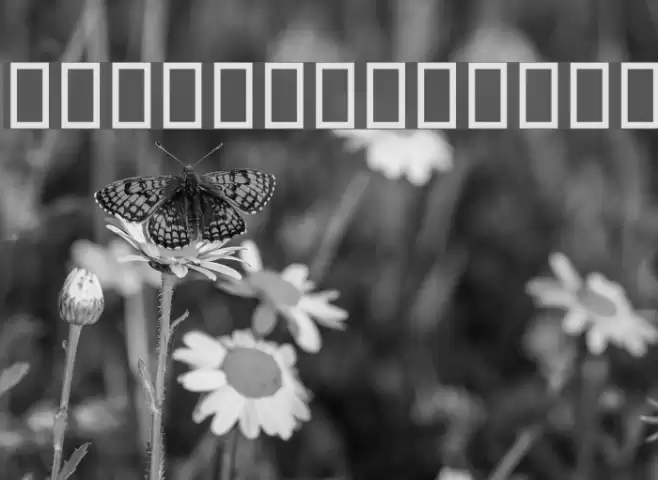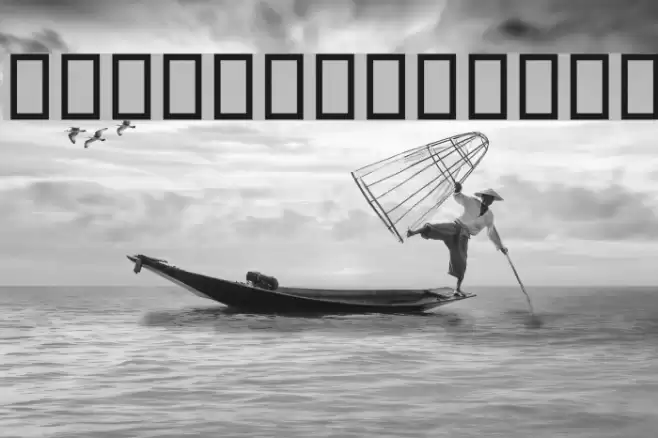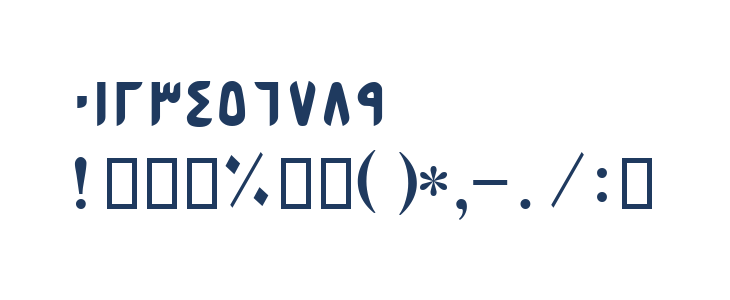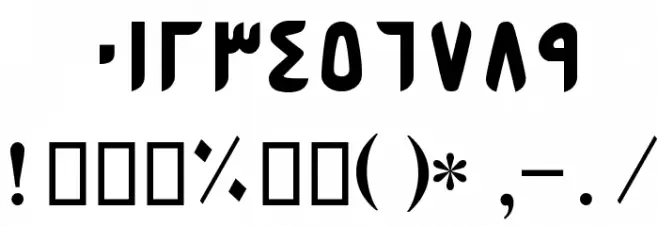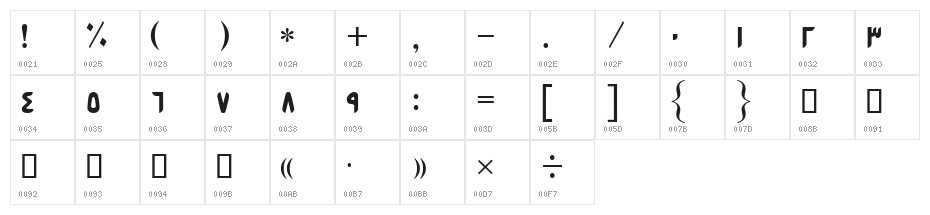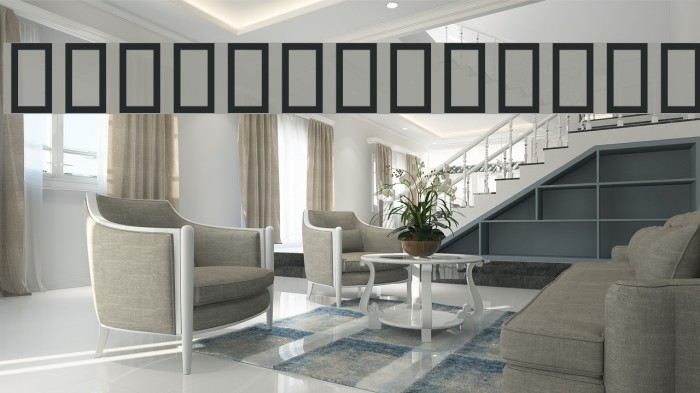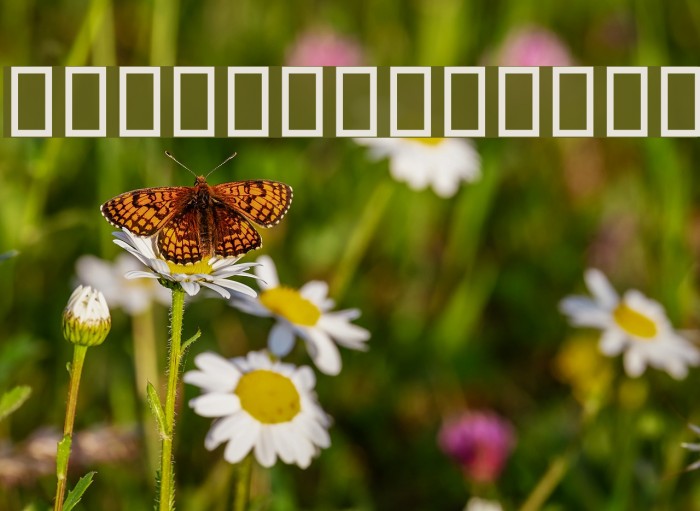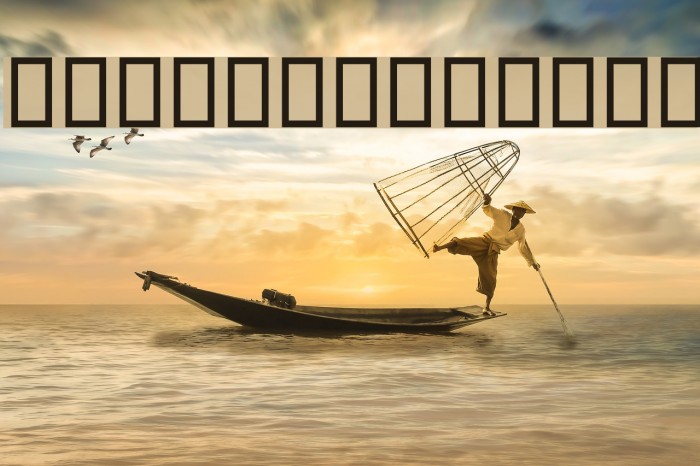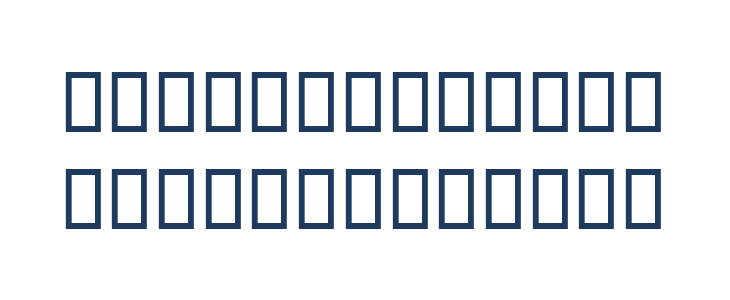
Esfahaan Font
Esfahaan Description
This font features a unique and artistic design, characterized by its bold and expressive strokes. The characters are crafted with a distinct flair, showcasing a blend of traditional and modern elements. The numerals are particularly stylized, adding a touch of elegance and sophistication. The special characters are creatively designed, enhancing the overall aesthetic appeal. This font is perfect for projects that require a distinctive and eye-catching typeface.
A bold and artistic font with a blend of traditional and modern elements from Uncategorized fonts.
- Proposed Projects: Ideal for branding, posters, and creative design projects that need a unique touch.